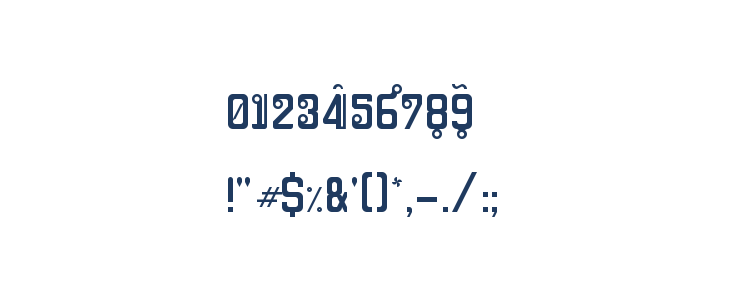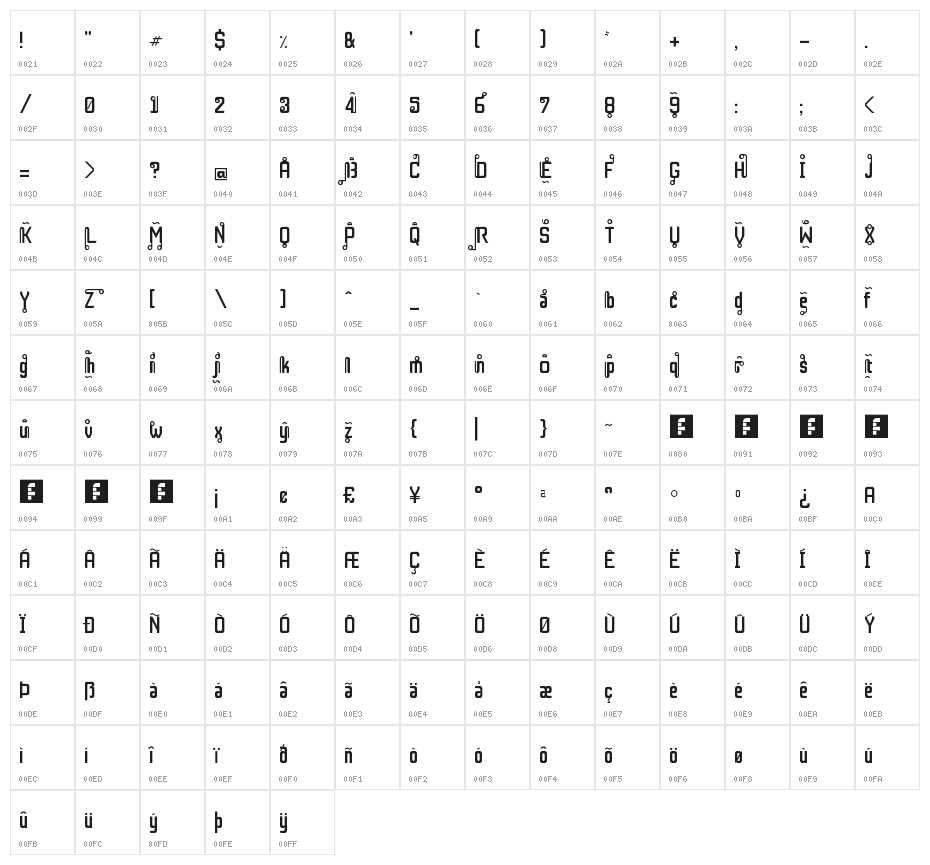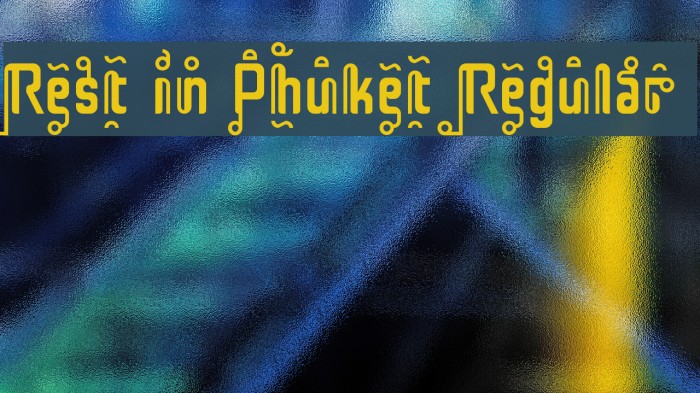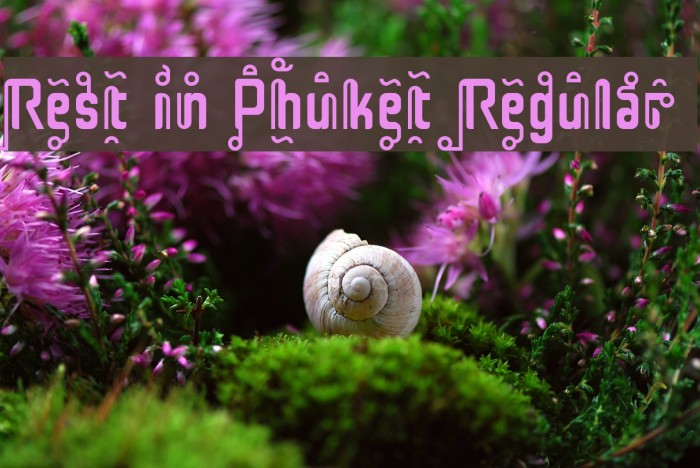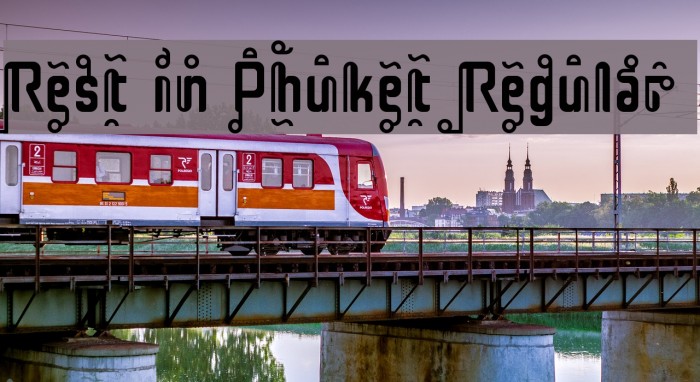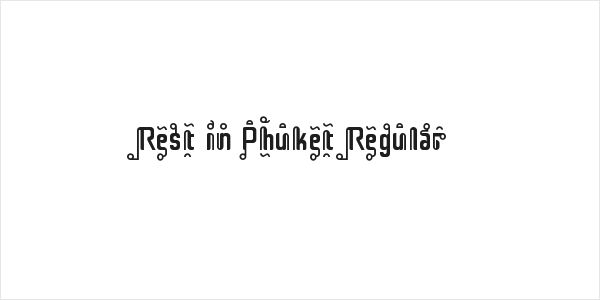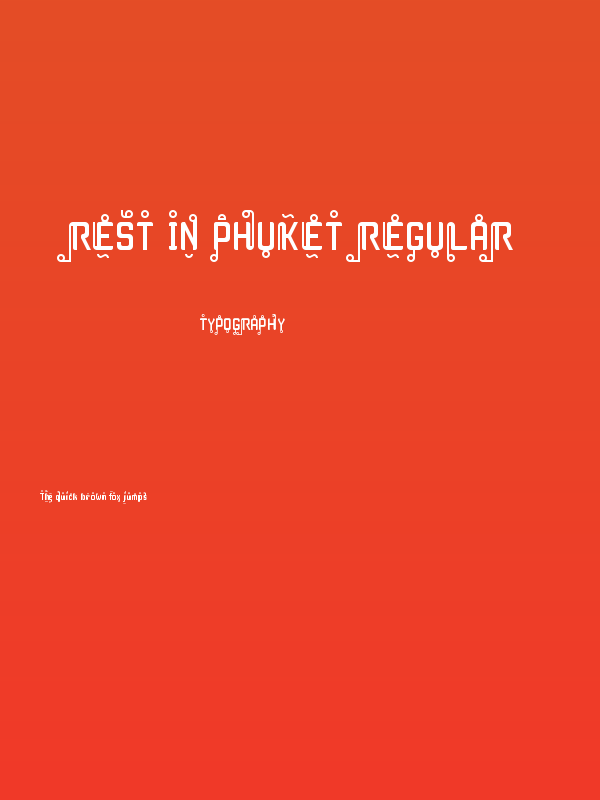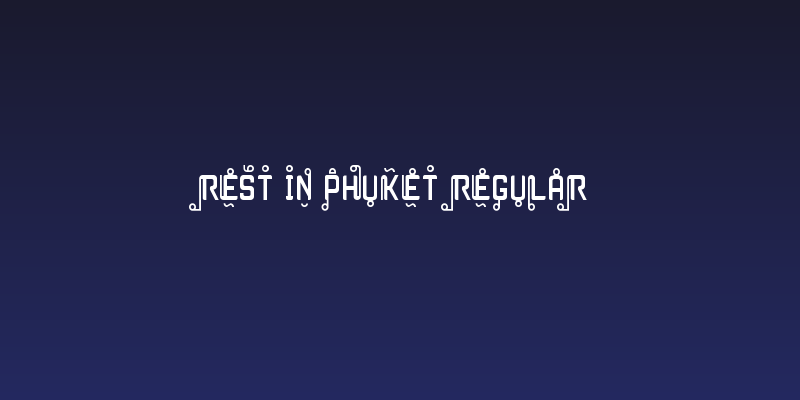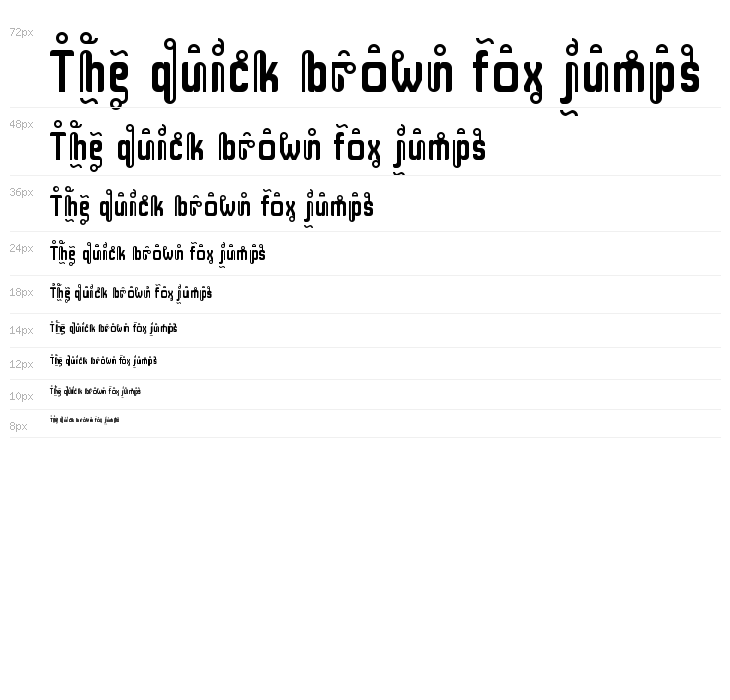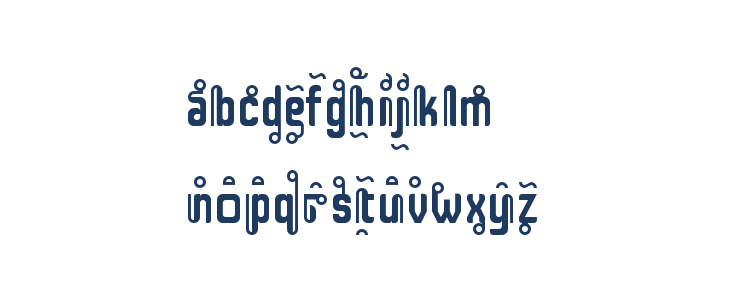
Rest in Phuket Regular Font
Rest in Phuket Regular Description
This font features a unique and playful design with a modern twist. Each character is adorned with small circular embellishments that give it a whimsical and decorative appearance. The uppercase letters are bold and structured, while the lowercase letters maintain a consistent style with slightly rounded edges. Numbers and special characters follow the same decorative theme, ensuring uniformity across all elements. The font's distinct style makes it suitable for creative and eye-catching designs.
| Proposed Projects | Ideal for creative projects such as posters, invitations, branding, and packaging that require a unique and eye-catching typeface. |